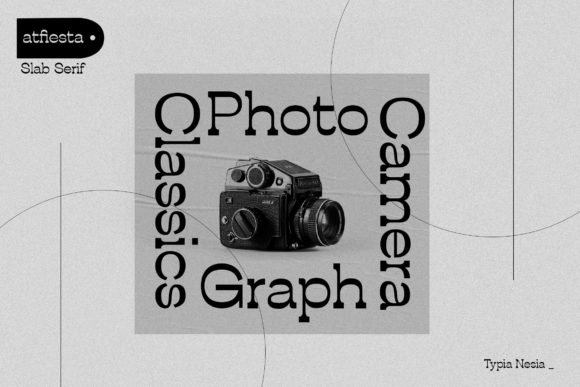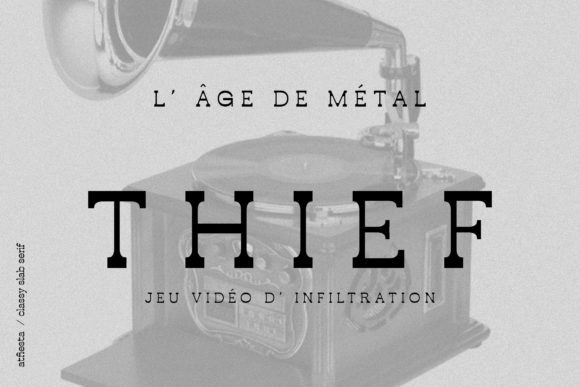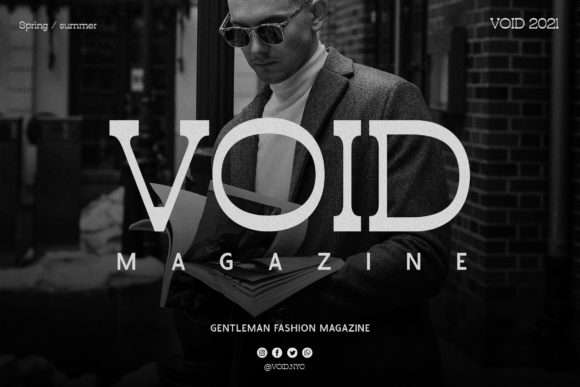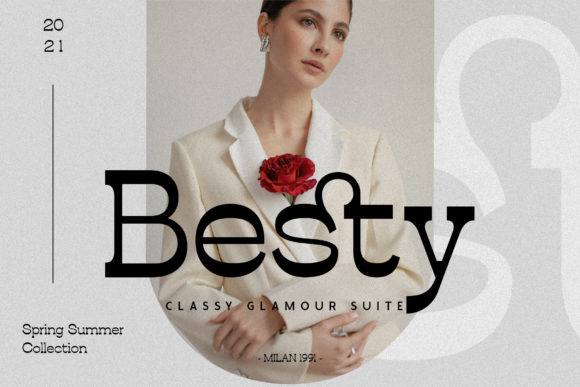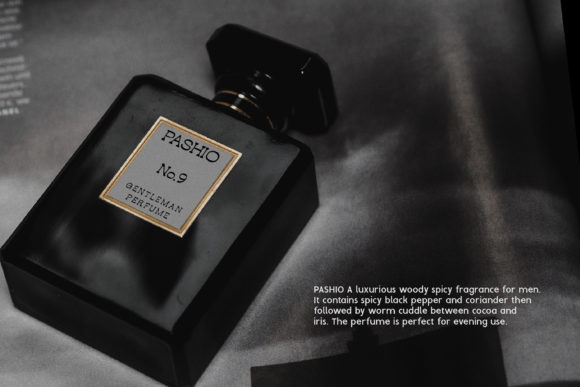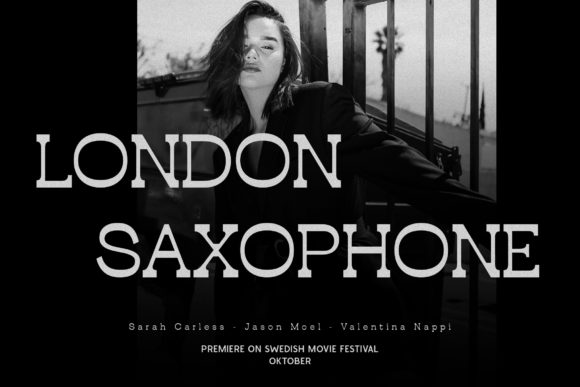
Introducing Atfiesta Font: The Ultimate Retro-Styled Slab Serif Font
Are you a designer or crafter looking for a font that can elevate your creative projects? Look no further than Atfiesta Font, a cool, classy, and retro-styled slab serif font that’s sure to become a valuable asset in your font library. With its unique blend of vintage charm and modern appeal, Atfiesta Font is the perfect choice for a wide range of design applications.
What is Atfiesta Font?
Atfiesta Font is a carefully crafted slab serif font that’s inspired by the classic typography of the past. Its retro style is reminiscent of vintage posters, signs, and advertisements from the mid-20th century, but with a modern twist that makes it perfect for contemporary design projects. The font features sturdy, chunky serifs and a bold, confident appearance that’s sure to grab attention.
Key Features of Atfiesta Font
• Retro Style: Atfiesta Font boasts a distinctive retro style that’s perfect for designers who want to add a touch of nostalgia to their work.
• Slab Serif Design: The font’s slab serif design makes it highly legible, even at small sizes, and perfect for use in a variety of design applications.
• Cool and Classy: Atfiesta Font has a cool, classy vibe that’s perfect for designers who want to create sophisticated, high-end designs.
• Highly Versatile: This font can be used for a wide range of design projects, from posters and signs to logos, branding, and packaging.
Why Choose Atfiesta Font?
So why should you choose Atfiesta Font for your design projects? Here are just a few reasons:
• Instant Recognition: The unique, retro style of Atfiesta Font makes it instantly recognizable, and can help your designs stand out in a crowded marketplace.
• Flexibility: Atfiesta Font is highly versatile, and can be used for a wide range of design applications, from print to digital.
• Easy to Read: The font’s slab serif design makes it highly legible, even at small sizes, which means your message will get across clearly and effectively.
• Time-Saving: With Atfiesta Font, you can create professional-looking designs in a fraction of the time it would take to create custom typography from scratch.
Design Inspiration with Atfiesta Font
Atfiesta Font is a versatile design tool that can be used in a wide range of creative projects. Here are a few design inspiration ideas to get you started:
• Retro Posters: Create eye-catching posters that evoke the nostalgia of the past.
• Vintage Logos: Design logos that incorporate the classic, retro style of Atfiesta Font.
• Branding and Packaging: Use Atfiesta Font to create bold, attention-grabbing branding and packaging designs.
• Digital Art: Experiment with Atfiesta Font in digital art projects, such as illustrations, animations, and more.
In conclusion, Atfiesta Font is a valuable addition to any designer’s font library. Its unique blend of retro style, cool classiness, and versatility makes it the perfect choice for a wide range of design applications. Whether you’re a seasoned designer or just starting out, Atfiesta Font is sure to become a go-to font in your creative toolkit.